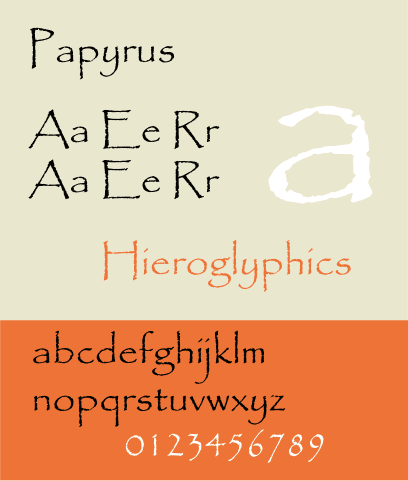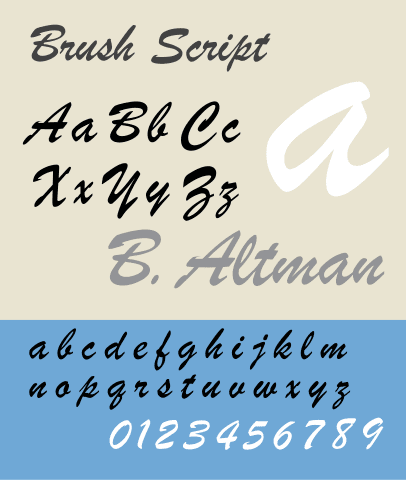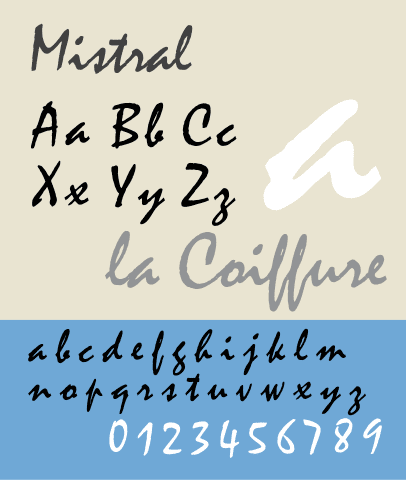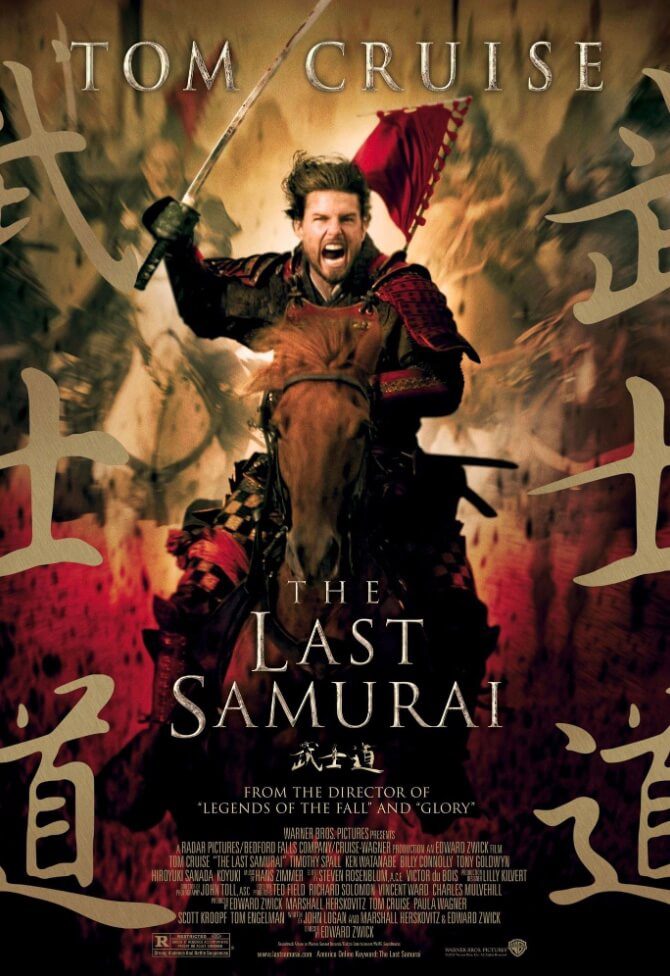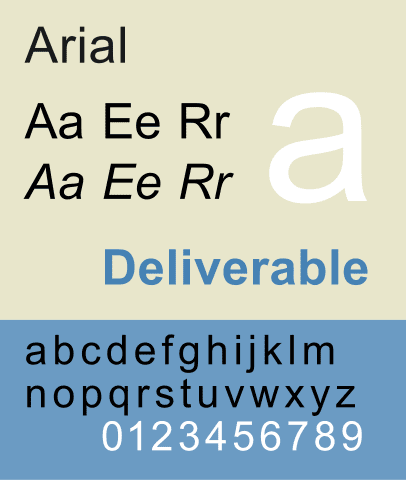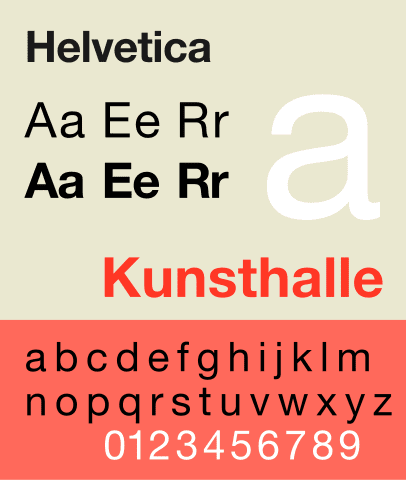
10 Most Hated Fonts + What To Use Instead
When choosing fonts, knowing what not to use is even more crucial than knowing what to use. Because not all good-looking fonts are good for your design. You cannot risk using the most hated fonts and having designers, critics, your clients and your audience judge your work before they have read a single word. After all, the wrong fonts send the wrong message, and you do not want that, do you?
Let’s be upfront, when we say the “most hated fonts” it does not mean that every designer despises them or that they are ugly. Some of these fonts look good but have been used too often. Whereas some were perhaps in trend a few years ago, but feel outdated for use in current times. Some of these are visually appealing but bad in legibility, and others have perhaps been used in the wrong context where there are default associations you cannot break.
On the whole, these are fonts that can dilute your message, negatively impact your brand image or affect user experience. A font’s suitability depends on its context, too: readability at the intended size, the audience, and the brand’s personality all matter. Ready to know about the most hated fonts in the world of design? Let’s go!
Fonts Designers Wish You’d Stop Using (And Smarter Alternatives)
1. Comic Sans
Of course, we had to start our list with the font that probably popped into your head the moment you saw “most hated fonts” – Comic Sans! While it’s a fun and playful typeface, it gained a notorious reputation for one simple reason – it was used everywhere.
From posters to newsletters, banners, and digital ads, Comic Sans started appearing everywhere where people wanted to convey a casual vibe. Eventually, people just didn’t want to see it anymore.
Despite its bad reputation, Comic Sans is sometimes recommended for people with dyslexia. However, research has not established that it consistently improves reading performance, so readability should be judged by the individual reader and the overall text layout.
But if you want to capture the same approachable vibe without the baggage, here are some stronger picks:
- GT Maru – a similar rounded sans-serif that is both modern and legible.
- Nunito – approachable and warm with diverse weights to explore within the font family.
- Quicksand – friendly yet polished for contemporary applications.
- Comic Neue – a slightly more refined version of Comic Sans
- Lato – while not exactly playful, it still feels young and casual.
2. Papyrus
A textured font with a hand-written feel and vintage vibes – Papyrus was created to evoke a sense of ancient history. So, why did it become one of the most hated fonts? It’s overuse and misuse made it look like a visual cliché.
For the refined feel it evokes, it ended up being used in a lot of places that call for a sense of exotic. Remember the logo of the first Avatar movie? It used a modified version of the Papyrus typeface. Perhaps this was the breaking point!
The font’s notoriety reached a new level of fame (or infamy) thanks to a now-iconic Saturday Night Live skit featuring Ryan Gosling.
If you’re looking for a typeface that has an organic or classic feel like the Papyrus but without the negative associations, consider these alternatives:
- Burowai – if you are looking for something with a strong cultural significance this font with its tribal aesthetic shines.
- Old North – another unique font known for its textured organic nature.
- IM Fell English – rustic rough edges and a classy feel.
3. Brush Script
In the script font category, Brush Script has grown to become one of the most hated fonts, mainly because it is one of the most overused fonts.
The informal tone of Brush Script made it a popular choice in advertising. However, its ubiquity led to overexposure and a strong association with a specific, outdated aesthetic. Today, using Brush Script can make your design look dated and uninspired, even generic. So, if you want your design to look authentic, then it’s best to stay away from Brush Script.
Want that casual, handwritten energy of the Brush Script font but without the cringe? Try these instead:
- Kaushan Script – vibrant and casual handwritten font, legible too!
- Grand Hotel – if you are looking for something light, fun, and flexible.
- Pacifico – a tad bit common but still not among the most hated fonts. It makes a great choice when you need to combine contemporary + vintage.
- Nickainley – a subtle vintage flair but with a clean and graceful signature-like feel.
- Allura – for a raw handwriting style that feels like a whiff of fresh air in casual designs.
4. Mistral
Much like Brush Script, Mistral was created to mimic a casual, handwritten style, but with a more distinct, fluid, and connected feel. Its letterforms have a unique slant and often connect in a way that suggests a fast, effortless hand.
For several years, Mistral was a go-to for designers wanting a quick and easy way to add a personal, informal touch to their work. But then this easily available font started appearing in many places where an informal tone was intended. From neon signs to packaging design, store signage and even outdoor ads, Mistral grew to be used so much that it no longer appeared attractive or unique.
Not to forget, Mistral is also not the best choice when it comes to legibility, especially when considering digital designs and smaller prints.
It’s time to move away from this much-hated font and choose something fresh instead. Here are a few alternatives worth trying:
- Hoodson Script – rustic script font but with a stronger character than Mistral.
- Madina – feels personal with its modern calligraphic style.
- Pinyon Script – if you are looking for something more refined and classy for a slight vintage feel.
- Magnolia – brush calligraphy style font with a fun personality.
- Aurelia – if you need something artistic and stylish for a creative design.
5. Trajan
Hard to believe that such an elegant font is on the list of the most hated fonts in brand designs? Yes, despite how sharp and impactful it appears, this font has reached its saturation point and is no longer considered a unique or authentic option, particularly in marketing.
With its majestic letterforms, all-caps design, and classical proportions, it was an instant hit for designers looking to convey a sense of gravitas, or even to evoke a feeling of history and sophistication. But then there was a time when a lot of movie posters, and we mean a lot, used Trajan or some version of it.
People got bored of seeing Trajan everywhere and so designers recommend avoiding this font in designs meant to be unique and authentic, like marketing graphics for a brand.
So, if you are looking for a font that feels grand without the visual cliché that Trajan has become, here are some options:
- Cinzel – looks a lot like Trajan but is clearly more modern and legible too.
- Lustria – a hint of classic but with rounded letterforms that look clean and minimal.
- Butler – a high contrast font that looks modern and elegant.
If you need more ideas, check out our blog on serif fonts to choose fonts for every occasion.
6. Arial
What’s there to hate about Arial? The mere fact that there is nothing too special about it. It has always been a top choice when it comes to readability and a safe font to fall back on when it comes to text-heavy designs. However, it’s bland! There, we said it!
Such a plain font, while practical, is not the most aesthetically appealing option when you are designing graphics that represent your brand and carry your crucial message.
Besides, its presence in countless software programs and its status as a default font in browsers and word processors has made it one of the most widely used typefaces in the world. Therefore, using Arial signals a lack of originality in design.
However, if you are looking for something minimalist, legible and easy to work with, here are some Arial alternatives you might like:
- Open Sans – a clean, neutral sans-serif that works well for both digital interfaces and longer blocks of text. It’s a practical alternative when you want a familiar, readable style with a slightly different appearance from Arial.
- Inter – a recently popular font designed for digital screens, Inter is very easy on the eye.
- Fira Sans – readable and modern, this sans serif font also has a hint of luxury to it.
- Gentona – bolder, louder, and still legible and easy to work with.
7. Helvetica
Helvetica might be a surprise addition to the most hated fonts list, but the truth is that graphic designers have been using it too often. It has become a go-to option for those designs that call for a foolproof sans serif font that is modern and scores high in terms of legibility.
Therefore, it’s a good time to switch from Helvetica to other contemporary sans-serif options.
Helvetica was a cornerstone of the “International Typographic Style” (or Swiss Style), designed to be a clear, neutral, and versatile font that could be used for any purpose, in any language. But everyone uses Helvetica.
If you want to communicate a similar professional and clean feel without using an overused font like Helvetica, here are some options:
- Graphik – looks a lot like Helvetica but is one of the most versatile font families with plenty of weight options.
- Larsseit – another great option if you are looking for several weights and styles, and it looks dapper in all-caps too!
- Akkurat – slim, modern and highly readable in different sizes.
8. Impact
What was once the go-to choice to create an impact has been used so much that it has made its way into the list of the most hated fonts in marketing. Originally, the font was specifically designed for headlines and display use, with thick strokes, tightly packed letterspacing, and a high x-height that makes it stand out on posters and publicity materials.
The infamy of Impact stems from one defining historical incident – its adoption as the default font for internet memes. Earlier, we spoke about some fonts being labeled the most hated fonts simply because of negative associations. Impact suffered this plight and therefore does not feel too refined or impactful when used in promotional graphics.
Impact works well for short, bold headlines, but its tightly spaced, condensed letterforms can make longer text harder to read, especially at smaller sizes. It’s best reserved for display use rather than paragraphs or other text that readers need to scan comfortably. Besides, overusing this font can overwhelm the audience. So yes, there are enough reasons to think of alternatives to this font.
If you need an equally bold option that can be used in place of the overused Impact font, here are a few:
- Anton – if you need something that looks exactly like Impact but with slightly lighter strokes and less condensed, then Anton is a great choice.
- Archivo Black – a bold display font which is great for headlines, but slightly more rounded and better in readability.
- Compacta – heavy and attention-grabbing, yet has a slight retro feel.
9. Bleeding Cowboys
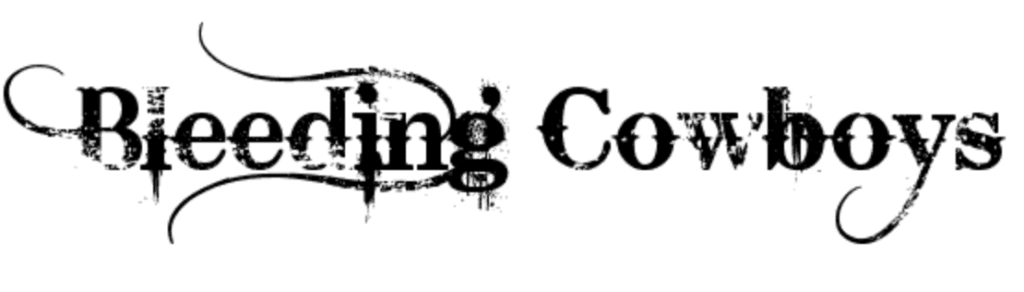
A cool, grunge-style font, Bleeding Cowboys is one of those fonts that can be used as it is without additional decorative elements to add character to the design. It quickly became a go-to choice for designers looking for a quick and easy way to give their work an edgy, handcrafted look, especially for rock band logos, tattoo parlors, and posters for action movies.
However, the rigid adherence to its style made it appear more like a fad than a trend worth adopting in the design segment. Besides, in the duration when it was famous, it was one of the most overused fonts for any design that calls for a grunge aesthetic. As a result, any design today that features Bleeding Cowboys feels like an amateur music band poster.
Finally, the swashes and textures can sometimes feel dramatic too. Let’s be honest, this is not an easy font to work with either.
So, what are some vintage fonts that carry a Western vibe similar to Bleeding Cowboys without being as tough to work with and without looking dated?
- Bonfire – rustic and textured, yet feels softer and easier to use.
- Roadkill – grungy yet feels more refined and is more legible than Bleeding Cowboys.
- Grind – industrial feel, bold letterforms, distressed textures for a raw, authentic feel.
10. Times New Roman
Another classic font, which was once considered a staple and is now among the most hated fonts, is Times New Roman.
This is because Times New Roman is an easily available font and is pervasive in the world of design. Because of being used too often, designers often feel tired of the font. Therefore, it’s safe to say that this font seems to lack the novelty it once had.
Times New Roman remains a practical choice for many documents, but its long association with academic papers, formal reports, and traditional publishing can make it feel predictable in brand design. If you want a classic serif style with a different personality, consider alternatives that better match your brand’s tone and the formats in which your designs will appear.
Want that classic serif aesthetic without feeling too “commonplace”? Here are some options:
- Lora – serif font, which is an excellent choice for readability and is known for its modern appeal.
- Crimson Text – old style serif font but with a professional tone which feels stable.
- Charter – with wider letterforms than Times New Roman, Charter feels slightly more relaxed.
Stop Letting Bad Font Choices Ruin Good Designs
Fonts in the above list are some of the most hated because of how common they are and how unimaginative they make your designs look. But in addition to these overused fonts, there are a few that instantly tell people that you are not serious about your business – like Chiller, Curlz MT, and Jokerman. Avoid these fonts if you want your audience to start trusting your brand and recognizing you for your authenticity.